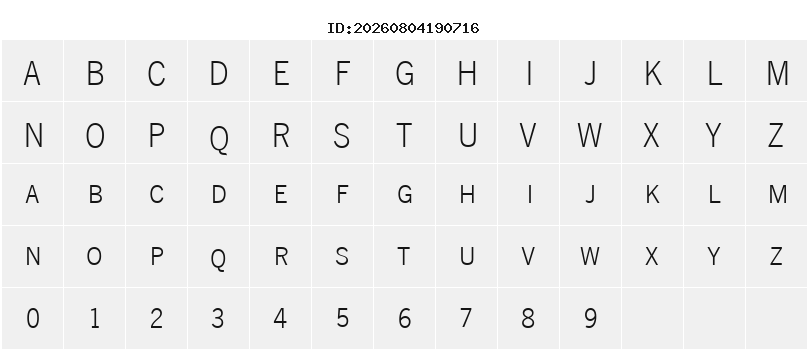
About NewsGotDCDLig.ttf
NewsGotDCDLig.ttf is a modern, elegant sans-serif font designed for ultimate readability and visual harmony. Perfect for branding, headlines, web design, and print materials.